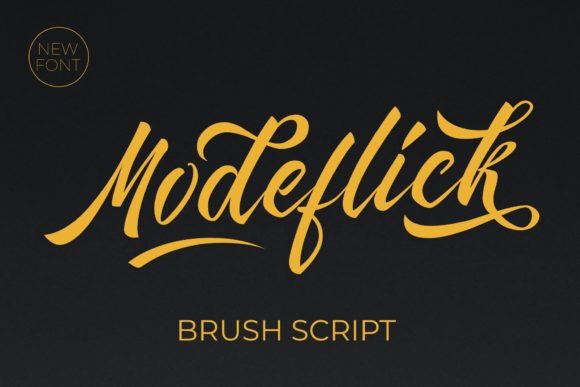
Introducing Modeflick Font, the bold and eye-catching brush script that will take your designs to the next level. Bold, yet elegant, Modeflick is a script font that oozes personality. Its dynamic brush strokes and playful curves add a touch of vibrancy to any project, making it the perfect choice for those seeking to make a statement.
Crafted by the talented designers at Flamde Studio, Modeflick is a font that's as versatile as it is beautiful. Perfect for logos, magazines, books, greeting cards, packaging, and fashion designs, it adds a touch of sophistication to any project. Its sweeping strokes and elegant curves create a sense of movement that draws the eye, making your designs stand out from the crowd.
Whether you're a seasoned designer or just starting out, Modeflick is a font that's easy to use and customize. With its extensive glyph set and multiple language support, it's the perfect choice for a wide range of projects. So, if you're ready to take your designs to the next level, add Modeflick to your collection today and let your creativity shine through.